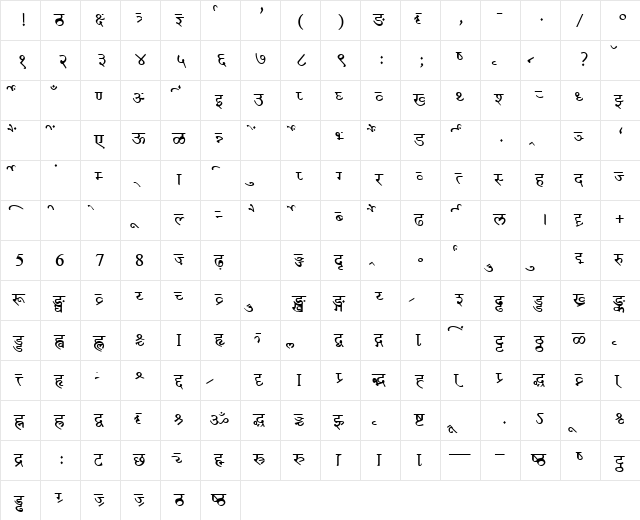
AkrutiDevPriya Normal
Design Context for AkrutiDevPriya Typeface
AkrutiDevPriya offers clean, dependable letterforms without strong stylistic allegiance, making it a practical choice for designers who need flexibility.